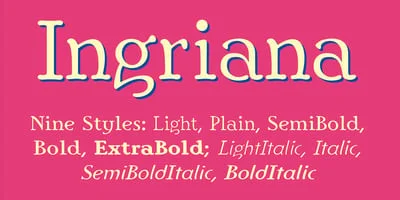
Ingriana Font
Ingriana Font is perfect for high-end fashion magazines, luxury cosmetic brands, elegant jewelry stores, sophisticated art galleries, premium lifestyle publications, upscale beauty salons, and refined cultural events. This exquisite typeface embodies timeless elegance and contemporary sophistication, making it ideal for brands targeting discerning audiences who appreciate refined aesthetics.
What makes Ingriana Font exciting is its masterful balance of classical elegance and modern refinement that epitomizes luxury typography. The font features gracefully proportioned letterforms with subtle curves and sophisticated details that create an atmosphere of exclusivity and taste. Its distinguished character conveys prestige and quality while maintaining excellent readability, making it perfect for premium brands seeking to communicate sophistication and trustworthiness.
The Ingriana Font family includes comprehensive weight variations from thin to bold, complete with elegant italic styles and refined alternates. The character set offers luxury ligatures, sophisticated ornaments, premium symbols, and elegant decorative elements that enhance the font's aristocratic appeal. Advanced OpenType features provide creative flexibility for international luxury brands and multilingual high-end marketing campaigns.
Whether you're developing luxury brand identities, creating premium editorial content, or designing sophisticated marketing materials, Ingriana Font delivers exceptional elegance and professional versatility. This distinguished typeface transforms ordinary text into prestigious visual experiences that resonate with affluent audiences while establishing memorable brand recognition in competitive luxury markets.